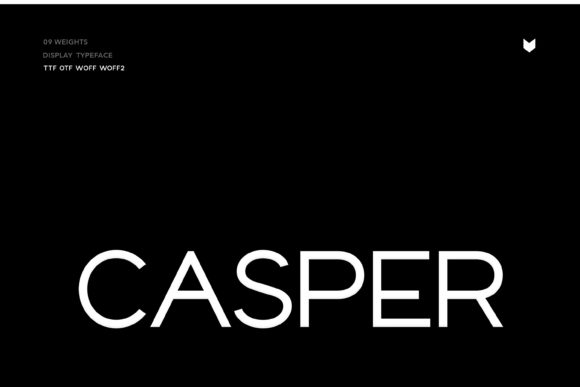
I still remember the frustration of working on a project, hours spent perfecting every detail, only to hit a roadblock when it came to choosing the right font. The client wanted something modern, elegant, and versatile – a font that would elevate their brand without overpowering it. As I scrolled through my font library, one name kept popping up: Casper. A neat and modern sans serif font family that promised to bring elegance to every character. But could it really live up to the hype?
An Honest Review of Casper Font
After putting Casper through its paces, here’s what I think:
- ✨ Elegant and modern design: Casper’s clean lines and simple shapes make it perfect for projects that demand a touch of sophistication.
- ✅ Versatile: This font works beautifully in both large and small sizes, making it ideal for headlines, body text, and everything in between.
- ✅ Legible: Casper’s clear and concise design ensures that your text remains easy to read, even at smaller font sizes.
Of course, no font is perfect, and Casper has a few minor quirks:
- 🤔 Limited character set: While Casper covers the basics, it may not have every special character or glyph you need for specific projects.
- ⚠️ Not ideal for body text in very small sizes: While legible, Casper may not be the best choice for extended blocks of text in very small sizes (e.g., 8-10pt).
The Story Behind Casper Font
Casper was designed with the goal of creating a clean, modern sans serif that embodies elegance in every character. Inspired by the simplicity of classic typography and the boldness of contemporary design, Casper’s creator aimed to craft a font that would be both versatile and sophisticated. Whether for formal or informal projects, Casper was designed to bring a touch of refinement to any design.
| Font Name | Casper Font |
| Author | Foxtype |
| What makes Casper a good choice for formal projects? | Casper’s elegant and modern design, combined with its legibility, make it an excellent choice for formal projects, such as corporate branding, luxury goods, or high-end events. |
| Can I use Casper for body text? | While Casper is legible, it’s best suited for headlines, titles, and short blocks of text. For extended body text, consider a font specifically designed for readability. |
| Is Casper suitable for digital interfaces? | Yes, Casper’s clean design and legibility make it a great choice for digital interfaces, such as websites, apps, and user experiences. |
| Can I use Casper for creative and informal projects? | Absolutely! Casper’s versatility means it can work beautifully in creative and informal projects, such as branding, posters, or social media graphics. |